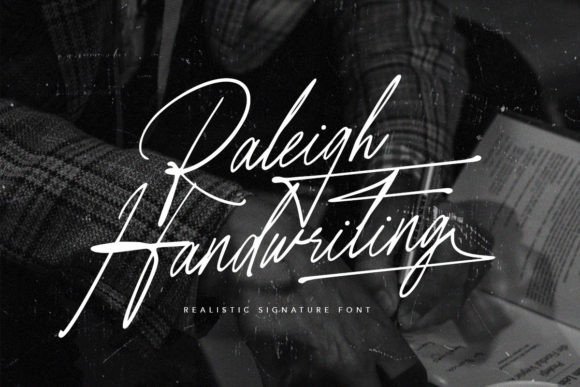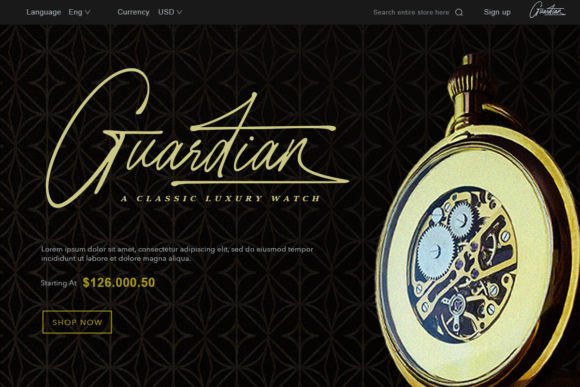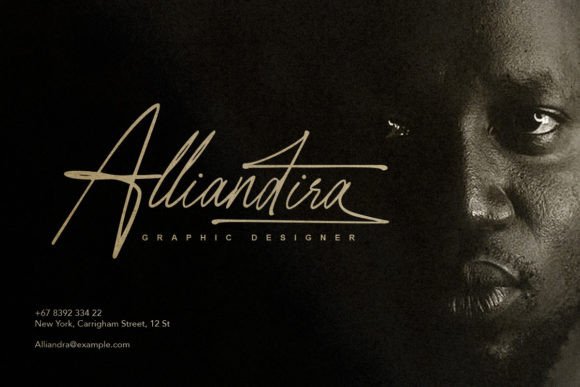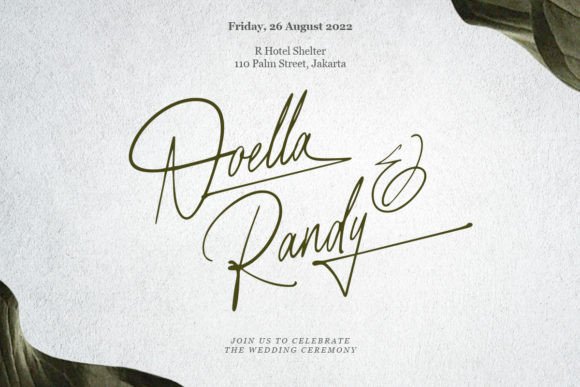
Raleigh Handwriting Font
About the Raleigh Handwriting Font
The wait is over! The incredible Raleigh Handwriting Font is now available for your design toolkit. Raleigh Handwriting is a deluxe and modern handwritten font that will bring realistic calligraphy to your projects. You can use this font for many purposes, such as wedding invitations, logotypes, signatures, and more.
Raleigh Handwriting excels in applications requiring a touch of elegant informality, such as wedding invitations, branding for boutique businesses, or short-form quotes on social media. Its delicate strokes make it ideal for logos and watermarks, lending a sophisticated, handcrafted feel. However, its script nature makes it unsuitable for extended body text or UI elements where readability is paramount.
This font’s personality is sophisticated yet approachable. For optimal pairings, consider pairing it with a clean sans-serif like Lato for a modern contrast, or a classic serif like Garamond for a more traditional feel. A geometric sans-serif such as Montserrat could also work well, providing a contemporary counterpoint to Raleigh’s flowing script.
Avoid using Raleigh for lengthy paragraphs or situations demanding high legibility. Its strength lies in its ability to add a personal, luxurious touch to projects needing a handwritten aesthetic without sacrificing professionalism.